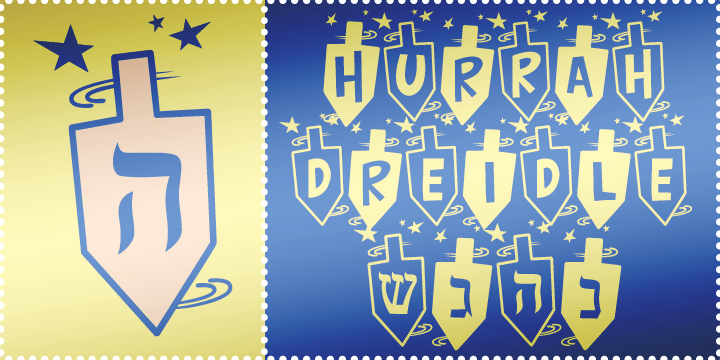
HomeFont BrosSpecial EffectHurrah Dreidle BTN Special Effect Hurrah Dreidle BTN FacebookXPinterestWhatsApp 1 of 1 About Hurrah Dreidle BTN Hurrah Dreidle is the perfect font for Hanukkah. Shin, Gimmel, Hay, or Nun, this dreidle game font is always a winner.  DOWNLOAD ON FONT BROSThis font is sold and delivered by Font Bros. Font Canyon may earn a commission if you buy through this link. People also explored Zallety Signature Font Mighty Side Font Zackery Font Emmelyn Font Anfrisha Font Mugets Font Zabsina Font Impersonal Willian Font 250 0 TagsHurrah Dreidle BTN Font Previous articleRock ItNext articlePumpkin Soup LEAVE A REPLY Cancel reply Comment: Please enter your comment! Name:* Please enter your name here Email:* You have entered an incorrect email address! Please enter your email address here Website: Save my name, email, and website in this browser for the next time I comment. Personal Use Free Dakwart Letter Personal Use Free Read more about this font Mellgatha Personal Use Free Read more about this font Bonhomie Personal Use Free Read more about this font Free Personal Use Free Read more about this font BLOG Top 10 Handwritten Fonts That Elevate Your Designs Top 10 Handwritten Fonts That Will Elevate Your Designs Handwritten fonts bring a warm, personal touch to every creative project. Whether you're designing logos, invitations,... Elegant Wedding Invitation Fonts – Handwritten & Script Fonts Transform Your Website: Elevate Your Typography with 7 Best Web Font Generators How to Cut Any Font on Cricut: Convert a Font to SVG (Free)